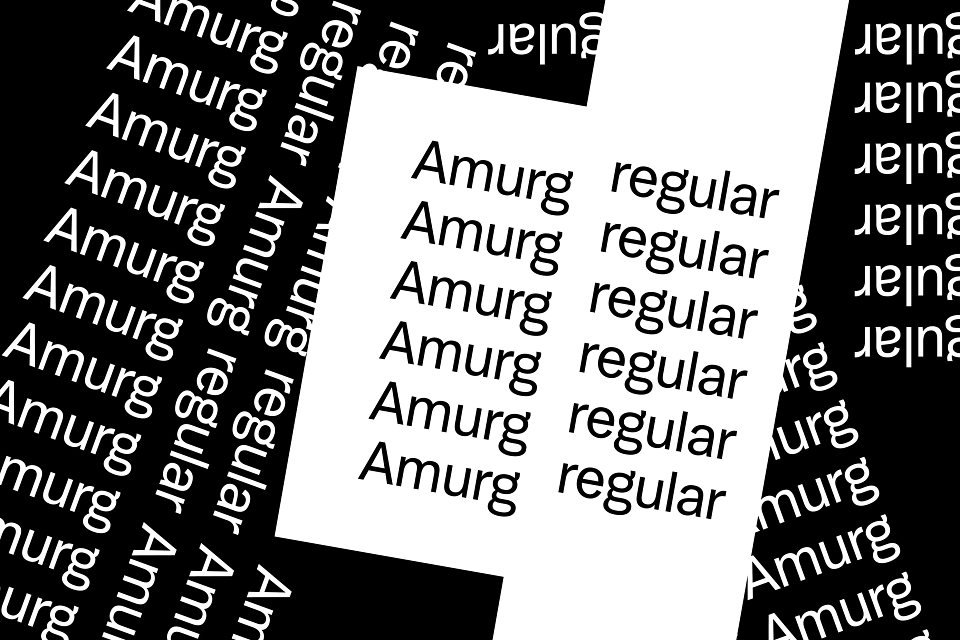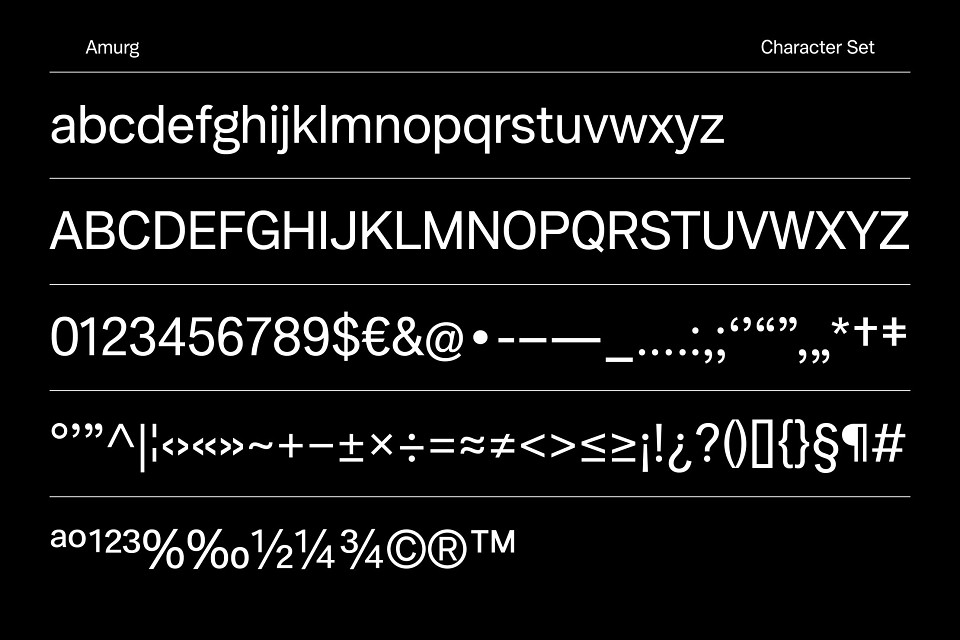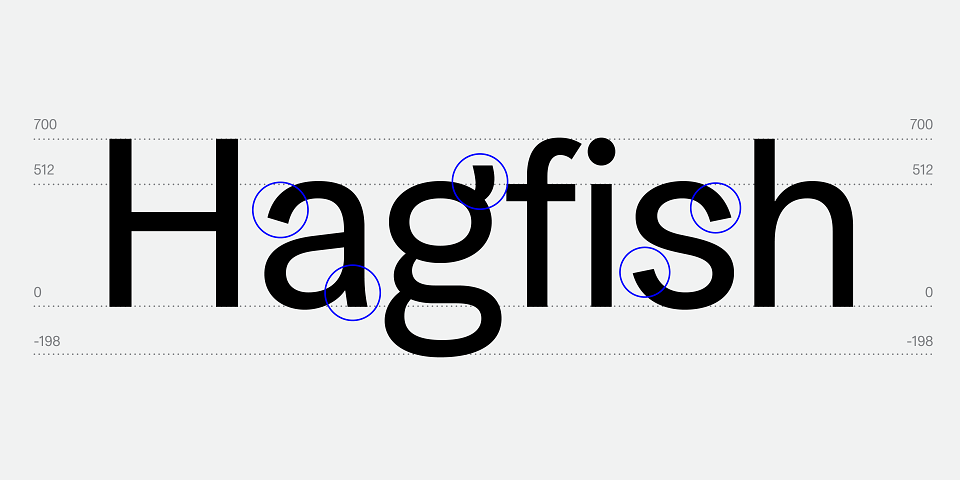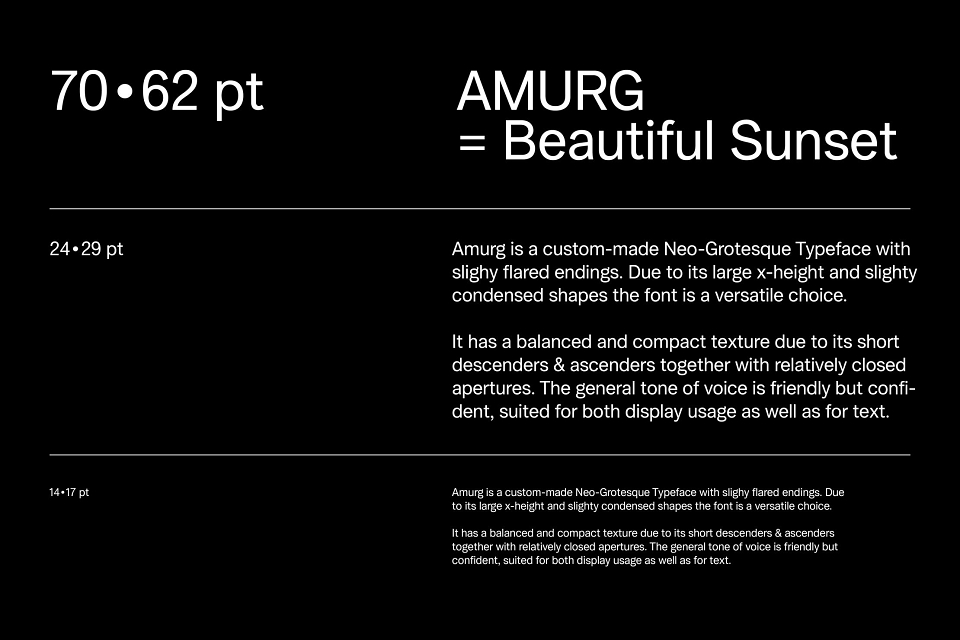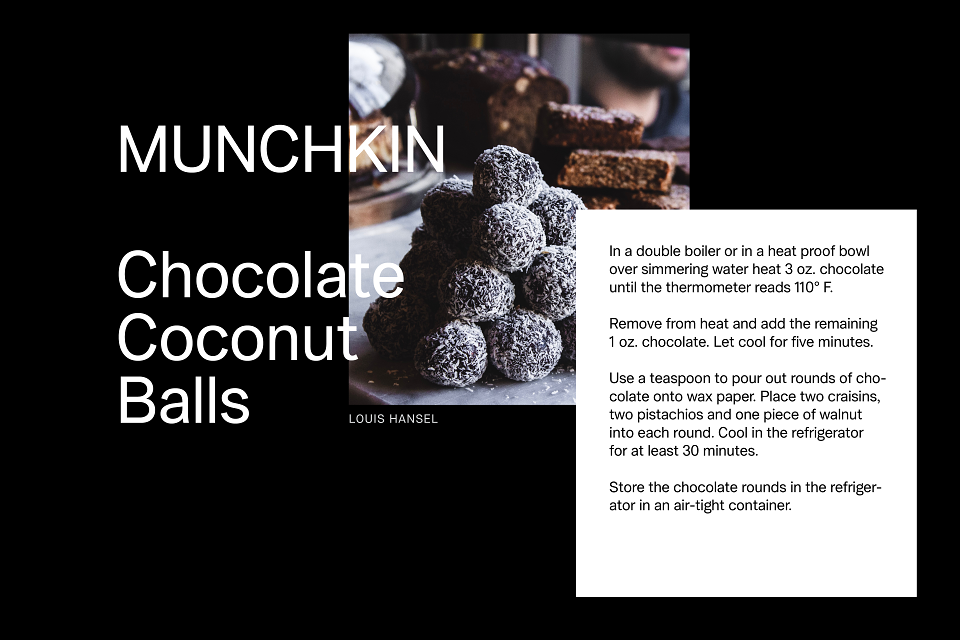
Sabina Chipara Typographer
Amurg is an exclusive custom-made Neo-Grotesque typeface with small flared endings. Due to its large x-height and slightly condensed shapes the font is a versatile choice. It has a balanced and compact texture due to its short descenders & ascenders together with relatively closed apertures. The general tone of voice is friendly but confident, suited for both display usage as well as for text.
Amurg Typeface